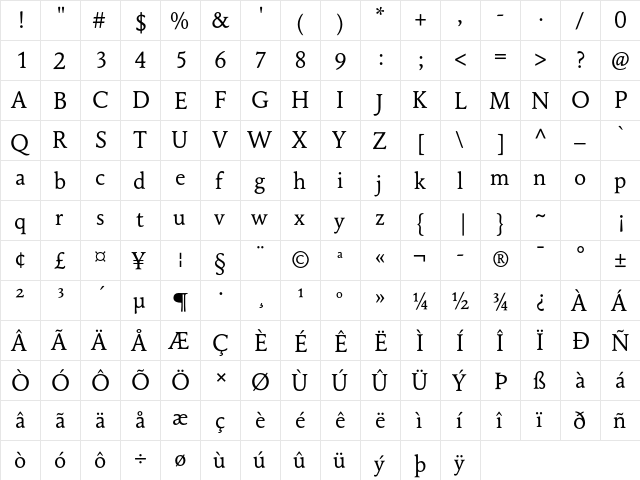
Maxime Std Regular
Design Context for Maxime Std Typeface
Maxime Std offers clean, dependable letterforms without strong stylistic allegiance, making it a practical choice for designers who need flexibility.